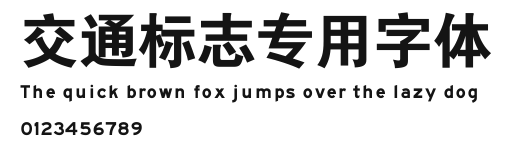
• Font Name: 交通标志专用字体
• Full Font Name: 交通标志专用字体
About 交通标志专用字体.ttf
交通标志专用字体.ttf is a modern, elegant sans-serif font designed for ultimate readability and visual harmony. Perfect for branding, headlines, web design, and print materials.